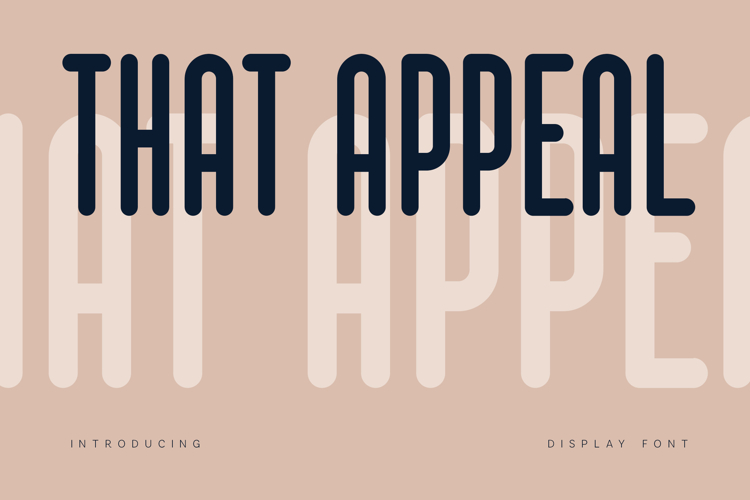
That Appeal Modern Condensed Display Font
That Appeal is a modern condensed display font created for bold headlines, striking branding, and impactful typography. Featuring tall, clean letterforms with soft rounded corners, it delivers a contemporary aesthetic while maintaining excellent readability across print and digital designs.
Its narrow proportions make it ideal for large titles, logos, posters, packaging, magazine layouts, social media graphics, album covers, product branding, advertising campaigns, signage, and web design. Whether you're creating a fashion identity or a modern editorial layout, That Appeal gives your typography a confident, minimalist presence.
Designed with multilingual language support and a complete character set, this versatile display typeface works beautifully across international branding projects.
- Condensed Display Design
- Clean Modern Letterforms
- Perfect for Headlines & Branding
- Great for Posters, Editorial, Packaging & Social Media
Create bold, memorable typography with a display font designed to stand out while remaining clean, elegant, and highly versatile.